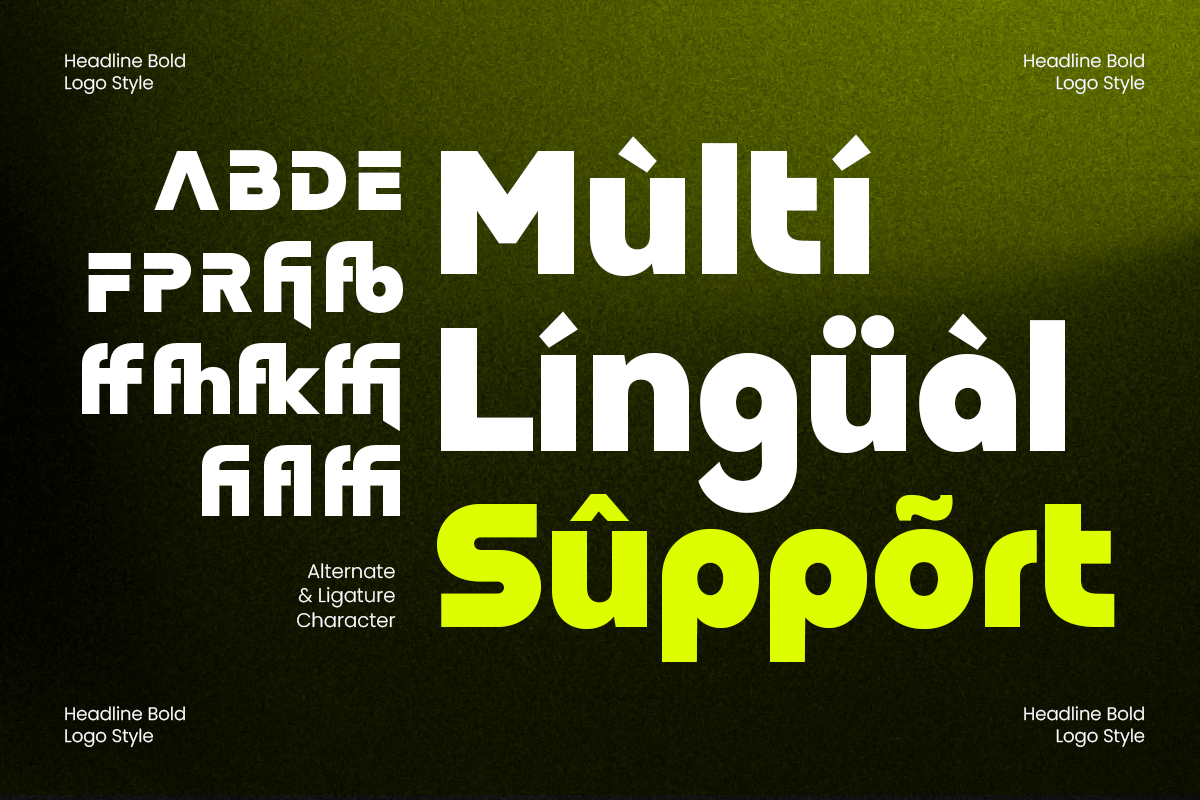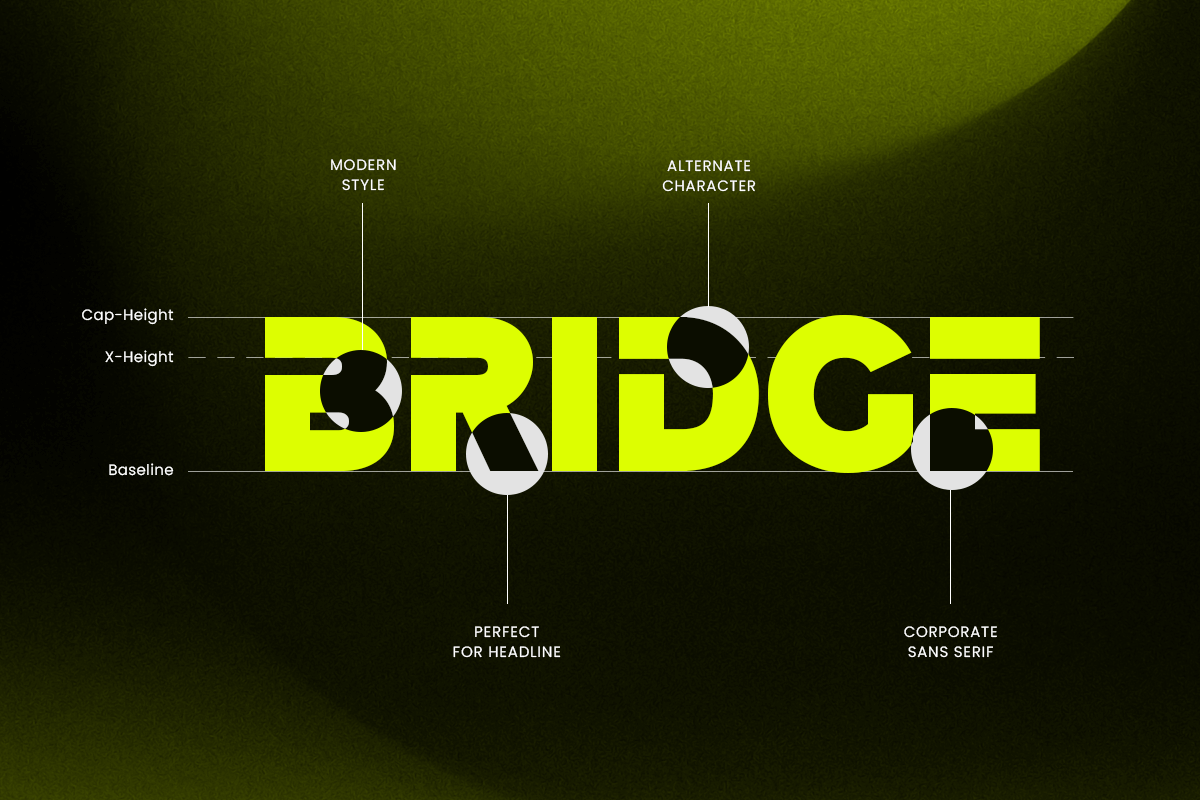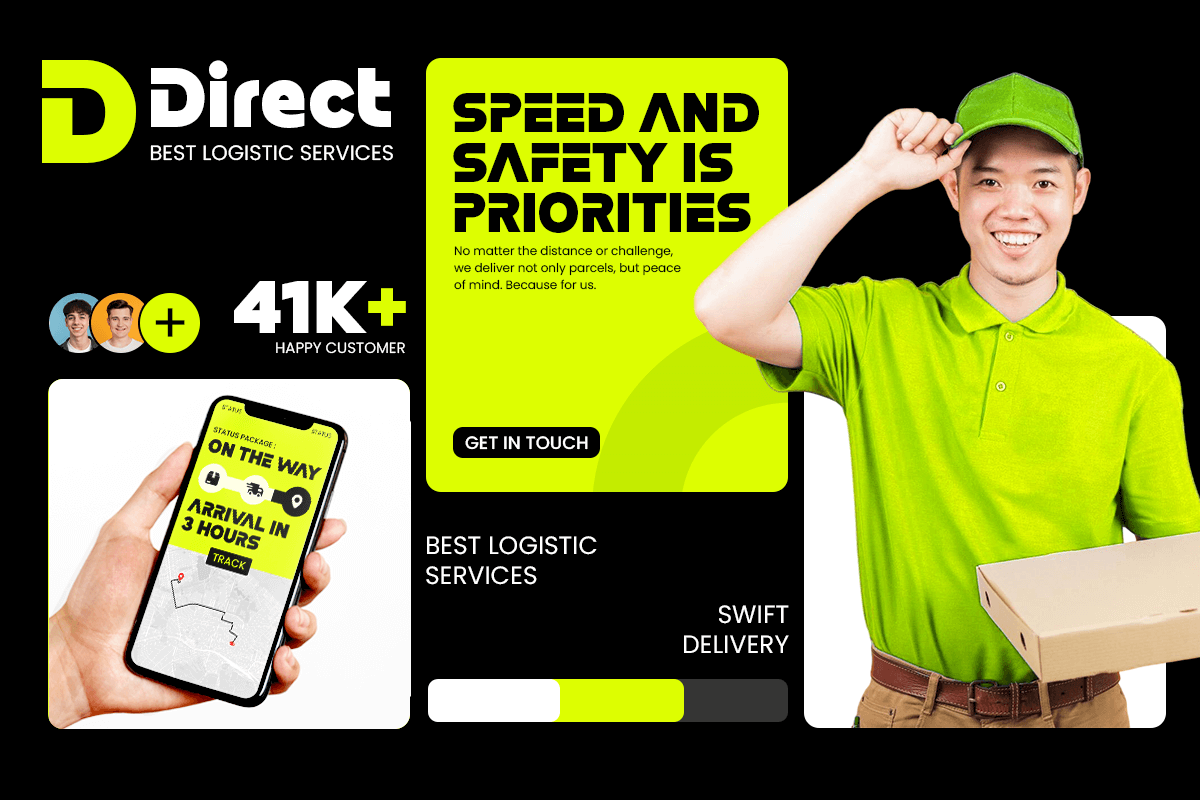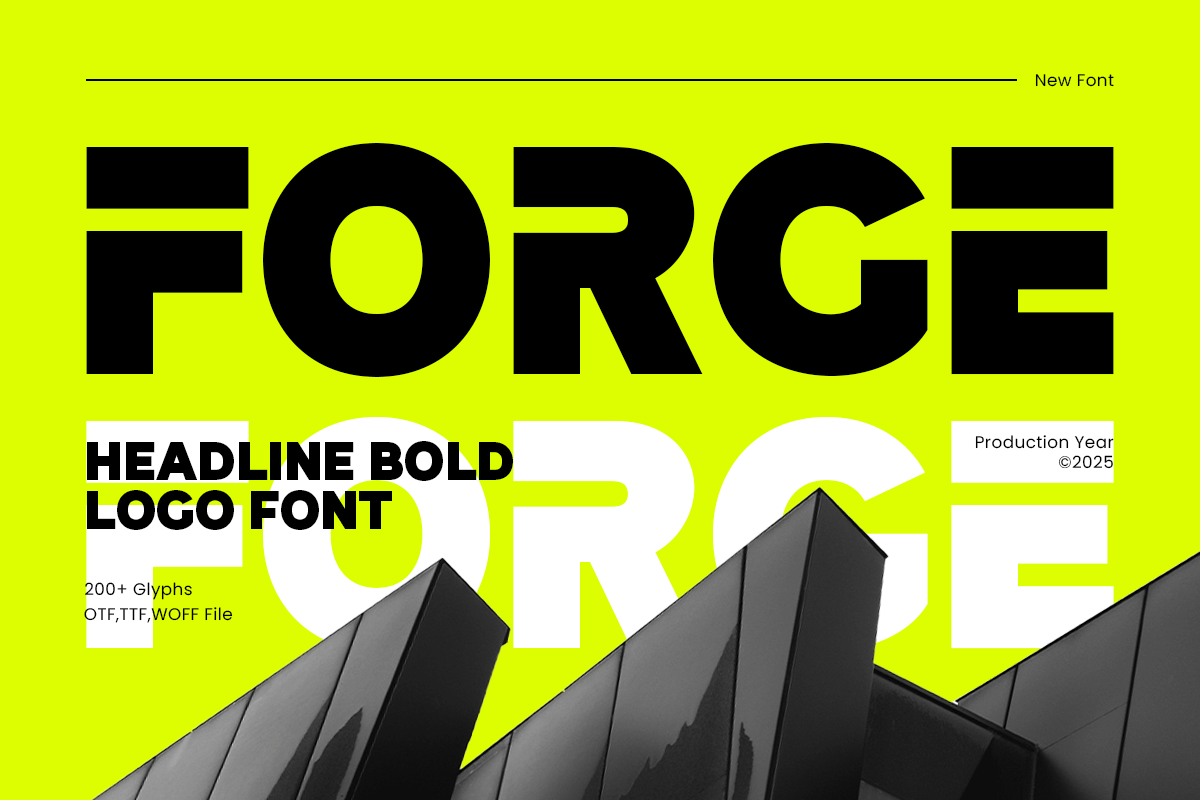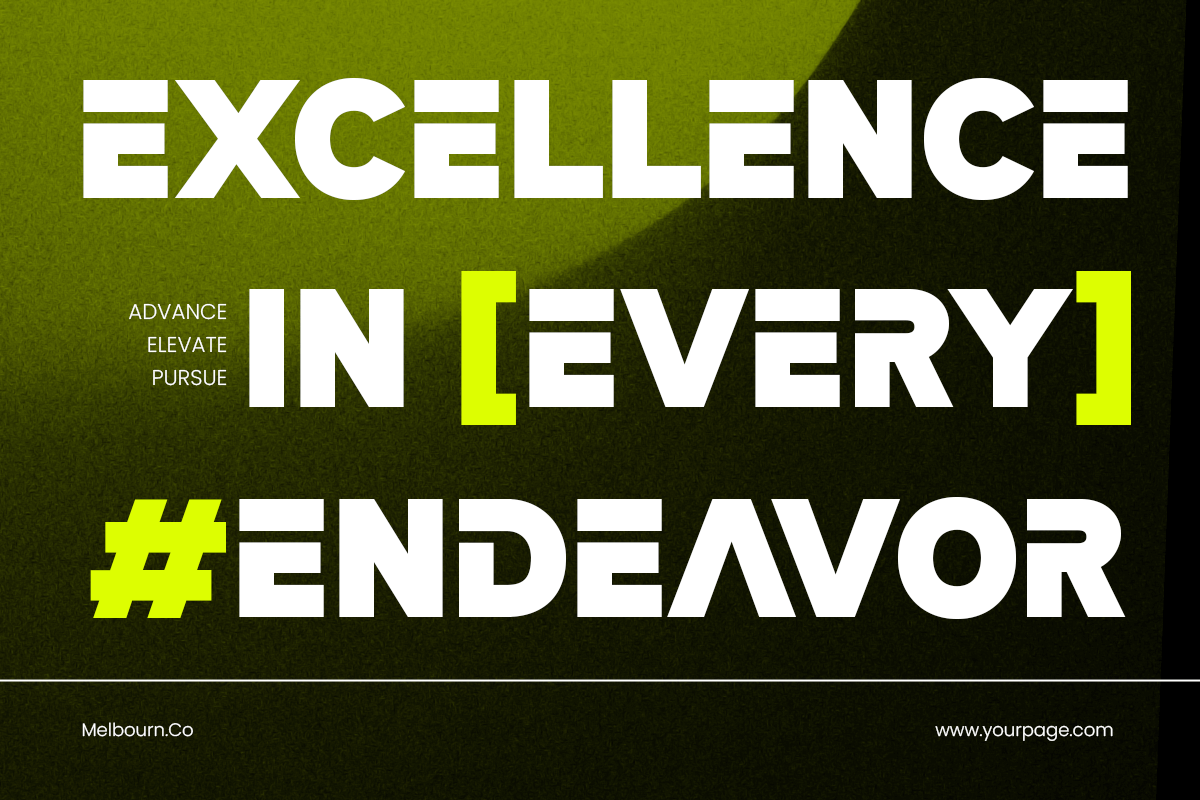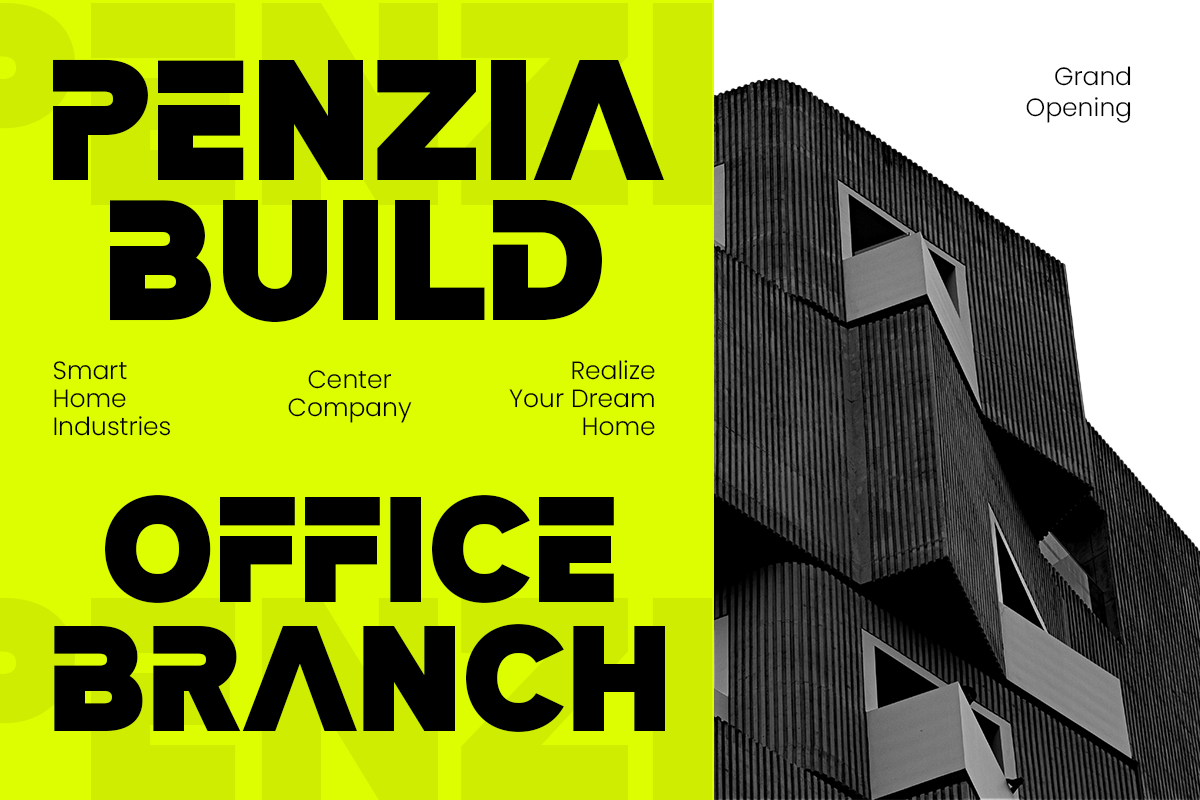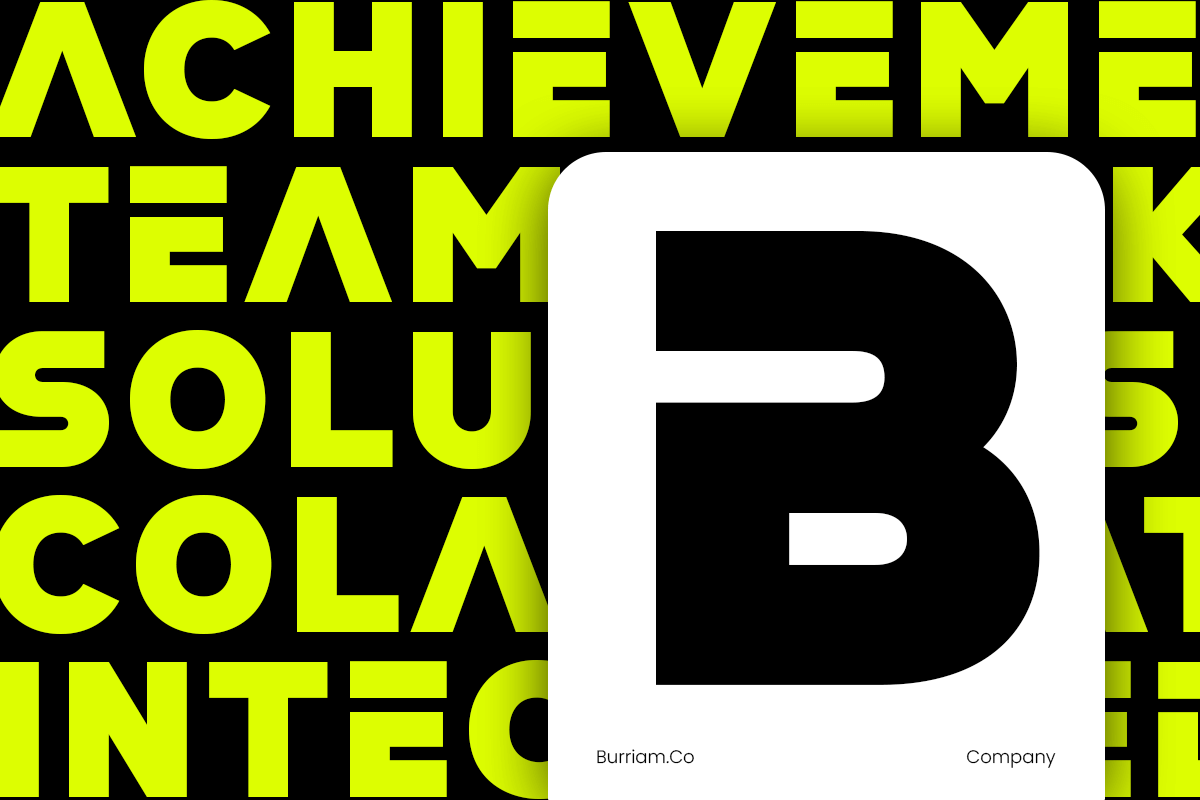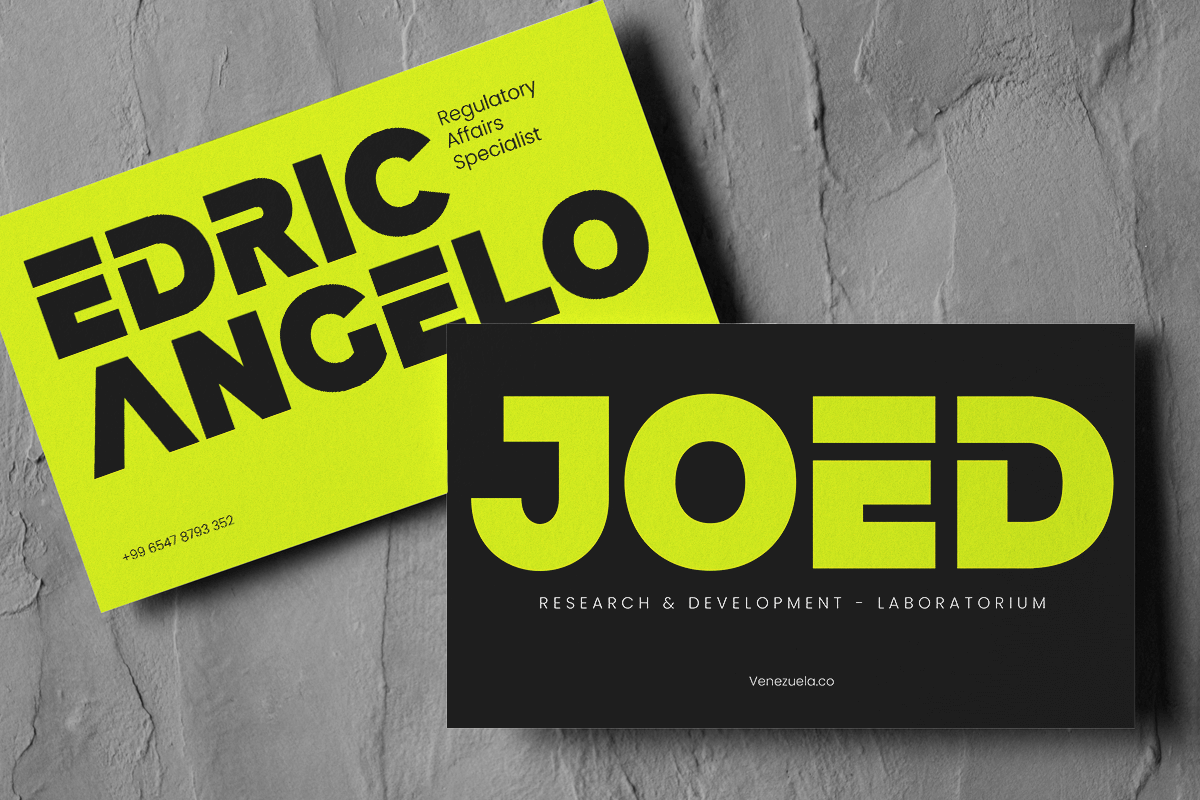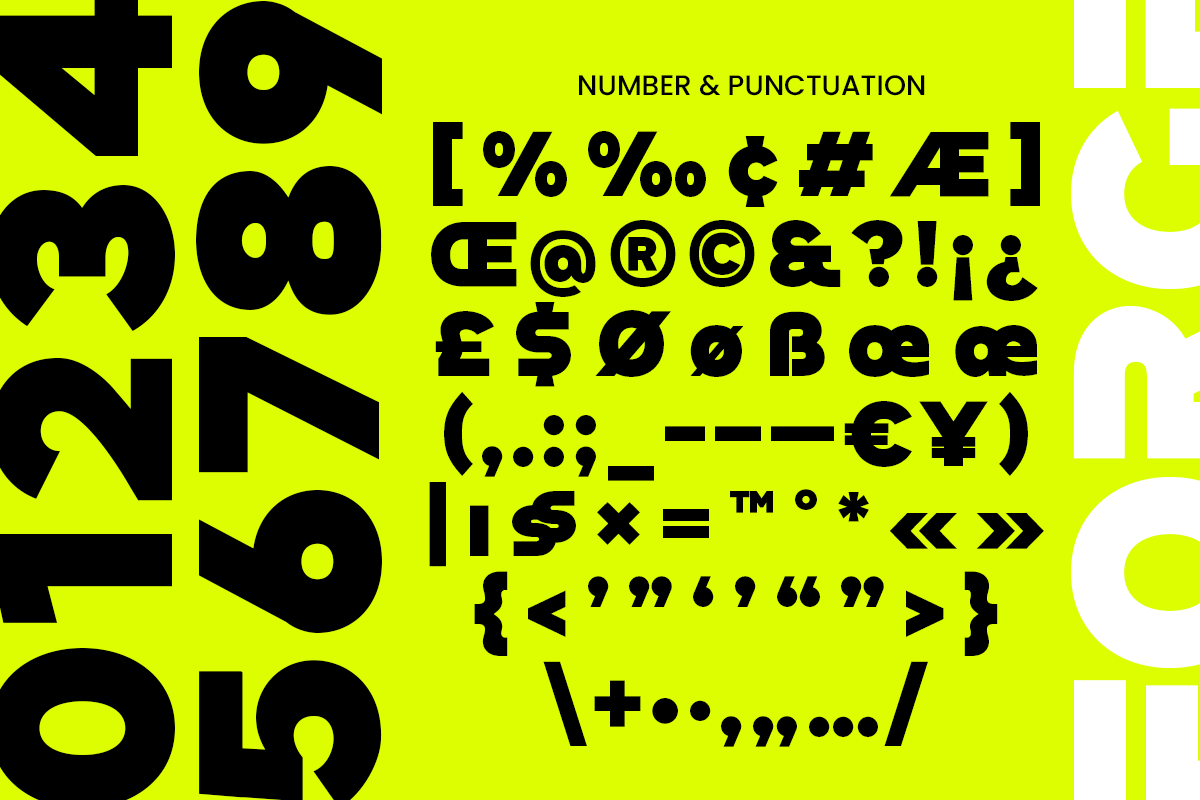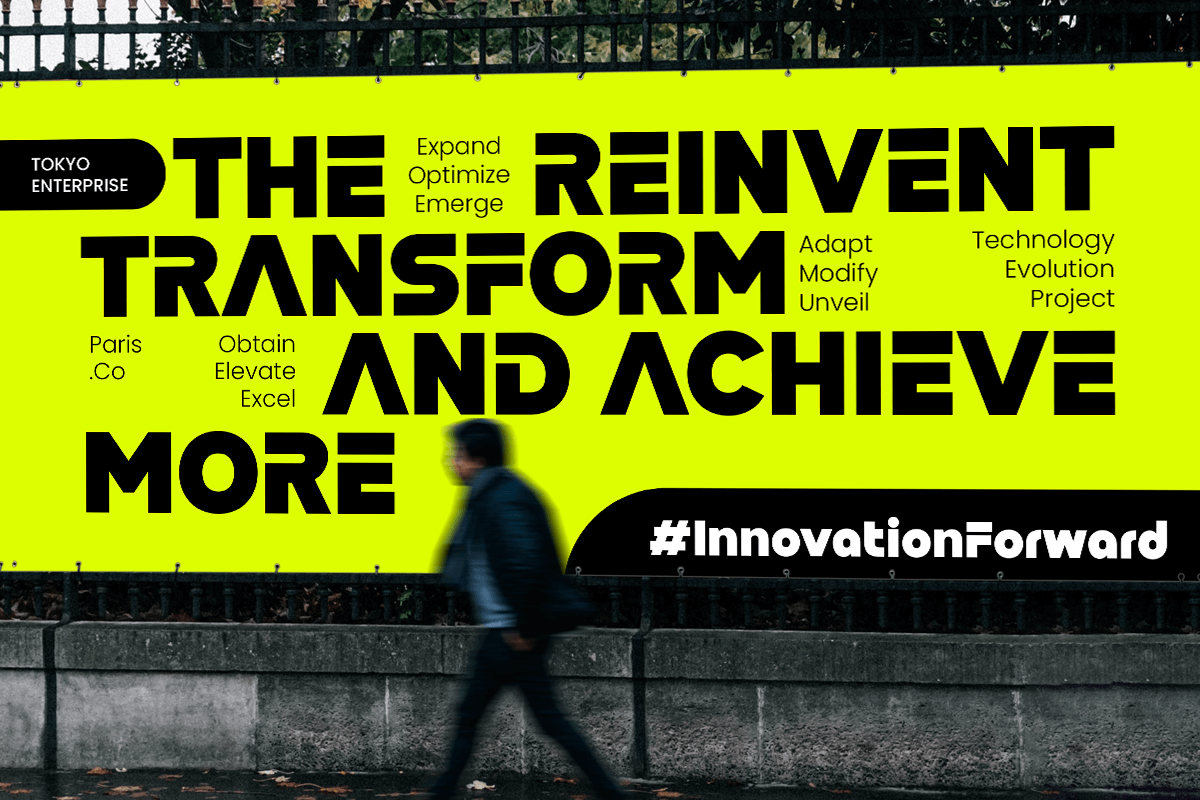
Forge - Headline Bold Logo Font
FORGE is a headline bold logo font designed to make a strong impression with its powerful and confident letterforms. Perfect for logos, headlines, banners, and branding projects, FORGE commands attention while maintaining a clean, professional aesthetic. Ideal for businesses, creative studios, or marketing campaigns, this font delivers clarity and impact, making every word stand out. Its bold design ensures versatility for both digital and print applications.
FORGE – Headline Bold Logo Font Features
Bold and confident letterforms for headlines and logos
Clean, modern, and professional design
Includes uppercase, lowercase, numerals, and punctuation
Versatile for digital and print projects
OpenType features for flexible typography
Make a bold statement with FORGE – the ultimate font for headlines, logos, and standout branding.